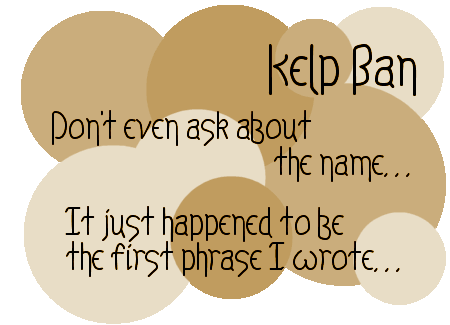
2000-2001 I took six hours of it. The first thing you do is learn the alphabet. It was a little confusing when letters that look like English letters have different sounds than thier English counterparts. This is my attempt to straighten all that out, As well as re-interpret it like I want...
This font includes many punctuation and international characters, but not nearly all of them. This is also my second version of this font - a little minor cleaning up ...